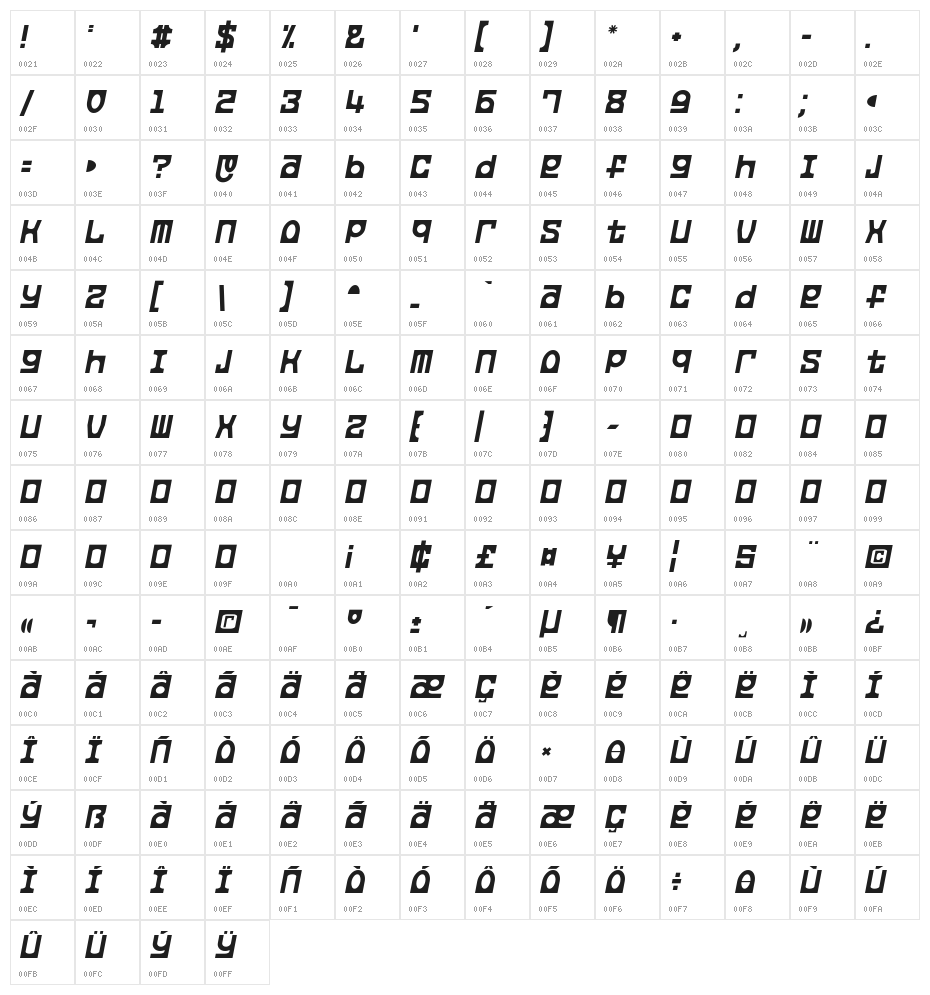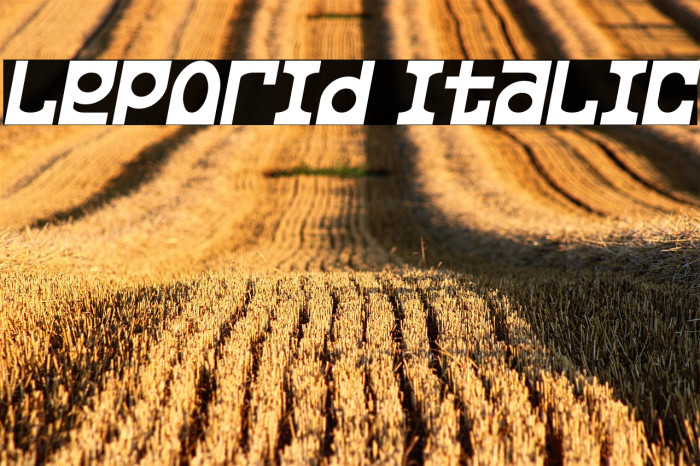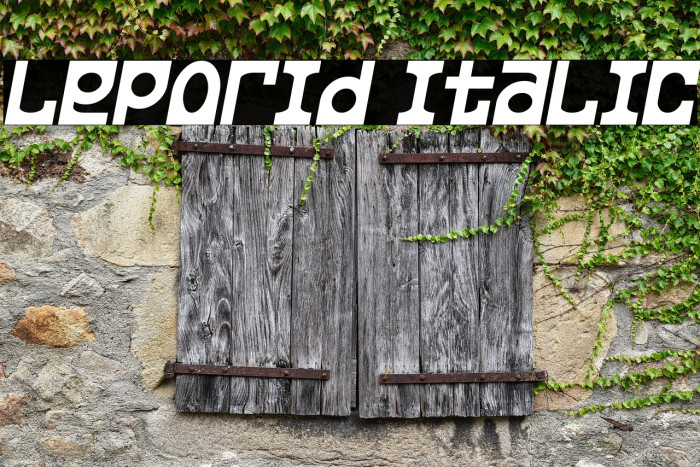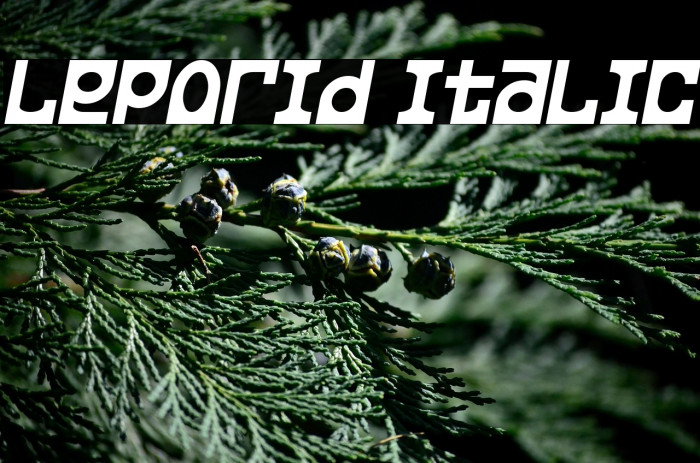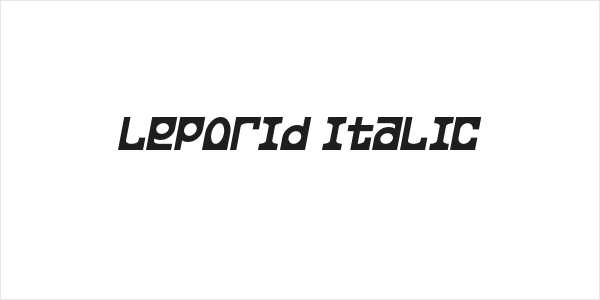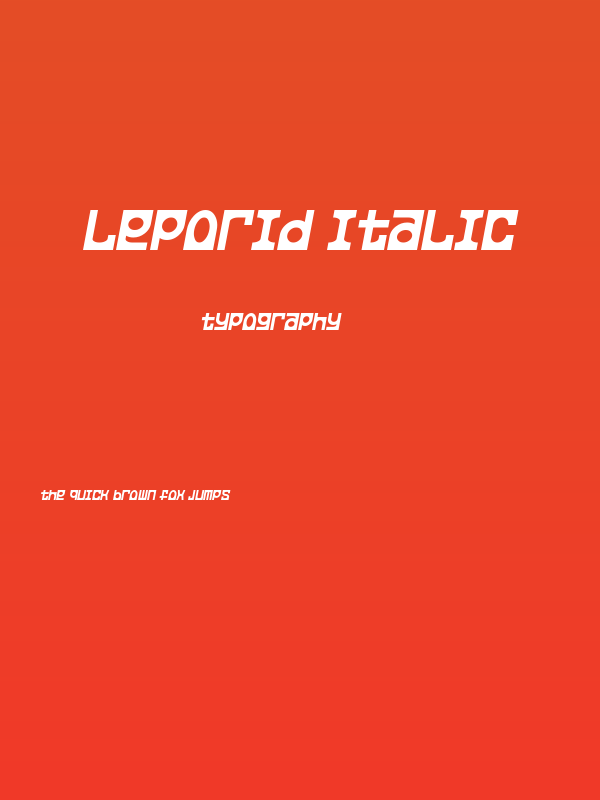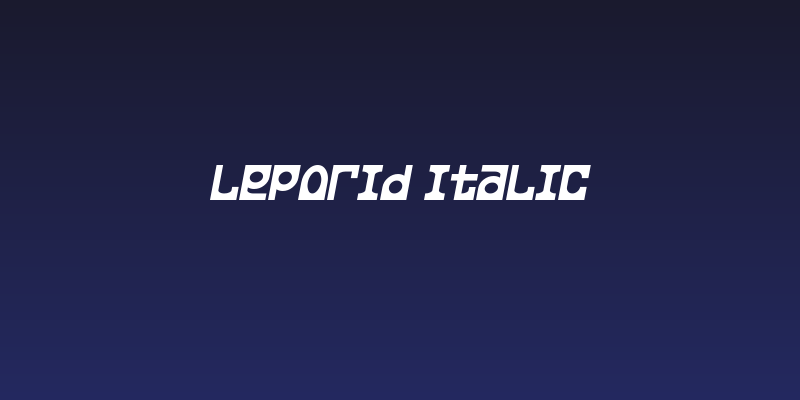
Leporid Italic Font
Leporid Italic Description
This font features a dynamic and modern design with a distinct italic slant, giving it a sense of motion and energy. The characters are bold and angular, with sharp edges and a geometric structure that creates a futuristic appearance. The uppercase and lowercase letters maintain a consistent style, while the numerals and special characters are designed to complement the overall aesthetic. The font's unique style makes it suitable for projects that require a strong visual impact.
Proposed ProjectsIdeal for sports branding, tech logos, dynamic posters, and futuristic designs.